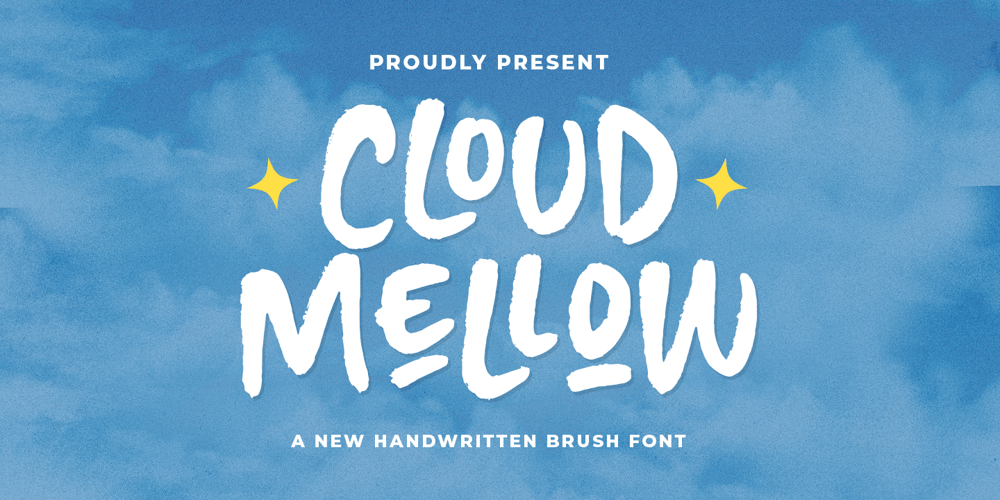
Cloud Mellow Font Family was designed by Hendry Juanda and published by Letterhend. Cloud Mellow contains 1 styles and family package options. Introducing Cloud Mellow – a playful handwritten brush font with rough edges, crafted for headlines, logos, and signatures that demand attention. Its casual, fresh style adds a dash of fun and character to any design, making your creations stand out with ease.Features : Uppercase & lowercase Numbers and punctuation Alternates & Ligatures Multilingual Support PUA encoded